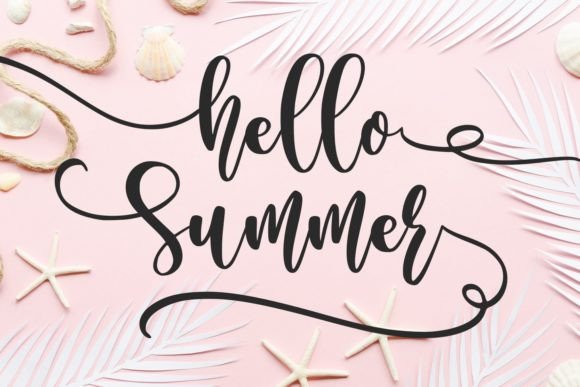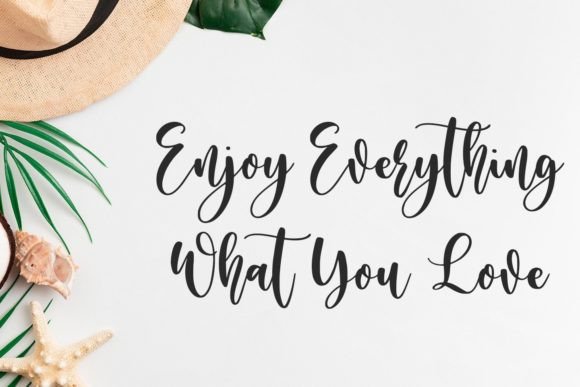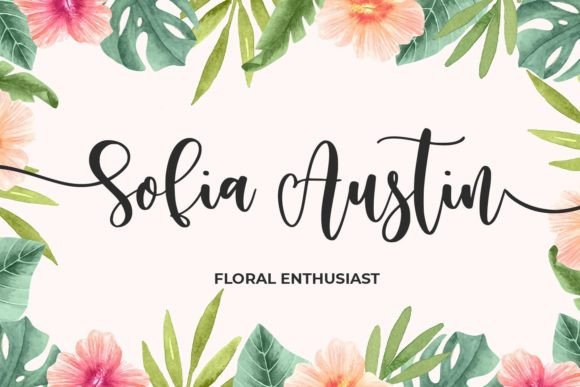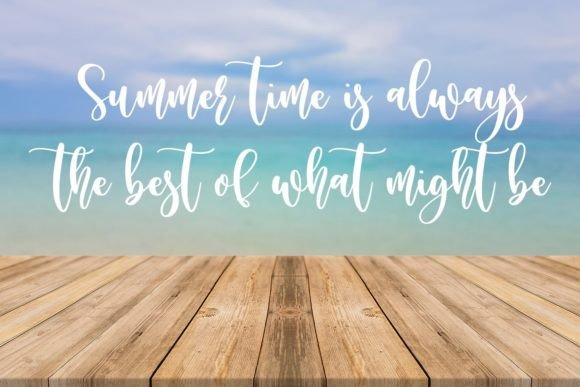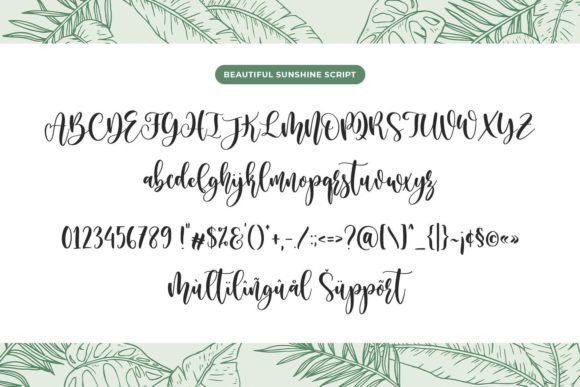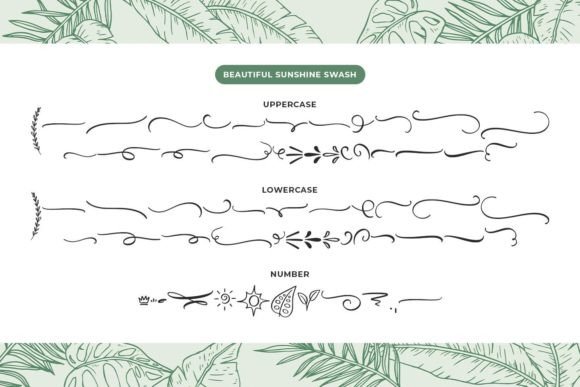
Introducing Beautiful Sunshine: The Perfect Font for Your Creative Projects
Are you a designer, crafter, or DIY enthusiast looking for a font that can add a touch of warmth and personality to your projects? Look no further than Beautiful Sunshine, a bouncy modern handwritten font that’s perfect for a wide range of creative applications.
What Makes Beautiful Sunshine So Special?
Beautiful Sunshine is a unique and versatile font that’s designed to bring a smile to your face. Its bouncy, modern handwritten style is perfect for adding a touch of whimsy and playfulness to your designs. Whether you’re creating quotes, wedding invitations, home decorations, or social media posts, this font is sure to make your projects stand out.
One of the best things about Beautiful Sunshine is its versatility. This font can be used for a wide range of projects, including:
- Quotes: Add a touch of personality to your inspirational quotes and make them stand out on social media.
- Wedding Invitations: Make your wedding invitations truly special with this beautiful and elegant font.
- Home Decorations: Add a personal touch to your home decorations, such as wall art, signs, and banners.
- Mugs and Tote Bags: Create unique and personalized gifts for friends and family.
- Cards and Banners: Add a touch of whimsy to your greeting cards and banners.
- Social Media Posts: Make your social media posts stand out with this beautiful and eye-catching font.
Why Choose Beautiful Sunshine?
So why choose Beautiful Sunshine over other fonts? Here are just a few reasons:
- Unique and Eye-Catching: This font is sure to grab attention and make your projects stand out.
- Versatile: Perfect for a wide range of projects, from formal to informal.
- Easy to Read: Despite its playful style, Beautiful Sunshine is easy to read and understand.
- High-Quality: This font is designed to be high-quality and professional, making it perfect for commercial use.
How to Use Beautiful Sunshine
- Experiment with Different Sizes and Colors: Play around with different sizes and colors to find the perfect combination for your project.
- Pair it with Other Fonts: Beautiful Sunshine pairs well with other fonts, so don’t be afraid to get creative and try out different combinations.
- Use it to Add Emphasis: Use this font to add emphasis to important words or phrases in your design.
Beautiful Sunshine is a beautiful and versatile font that’s perfect for designers, crafters, and DIY enthusiasts. Its unique and eye-catching style makes it perfect for a wide range of projects, from quotes and wedding invitations to home decorations and social media posts. With its high-quality design and ease of use, Beautiful Sunshine is sure to become a favorite in your font collection.